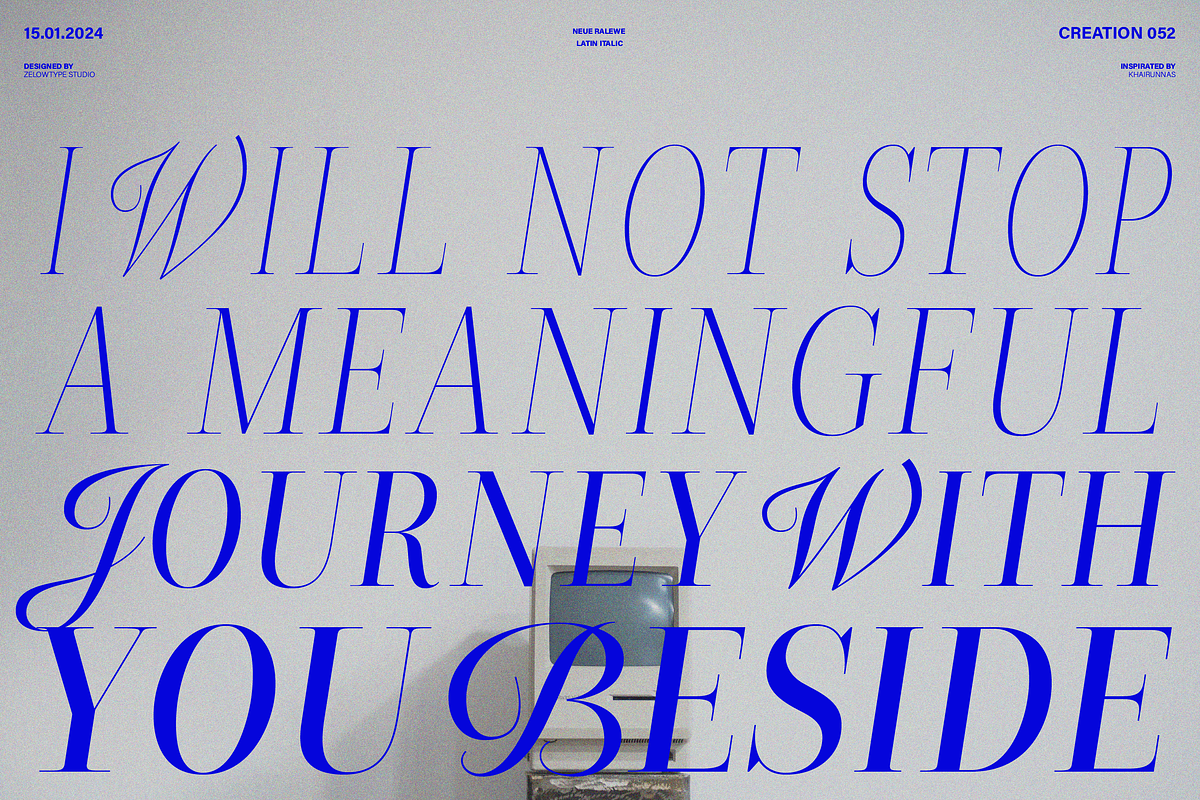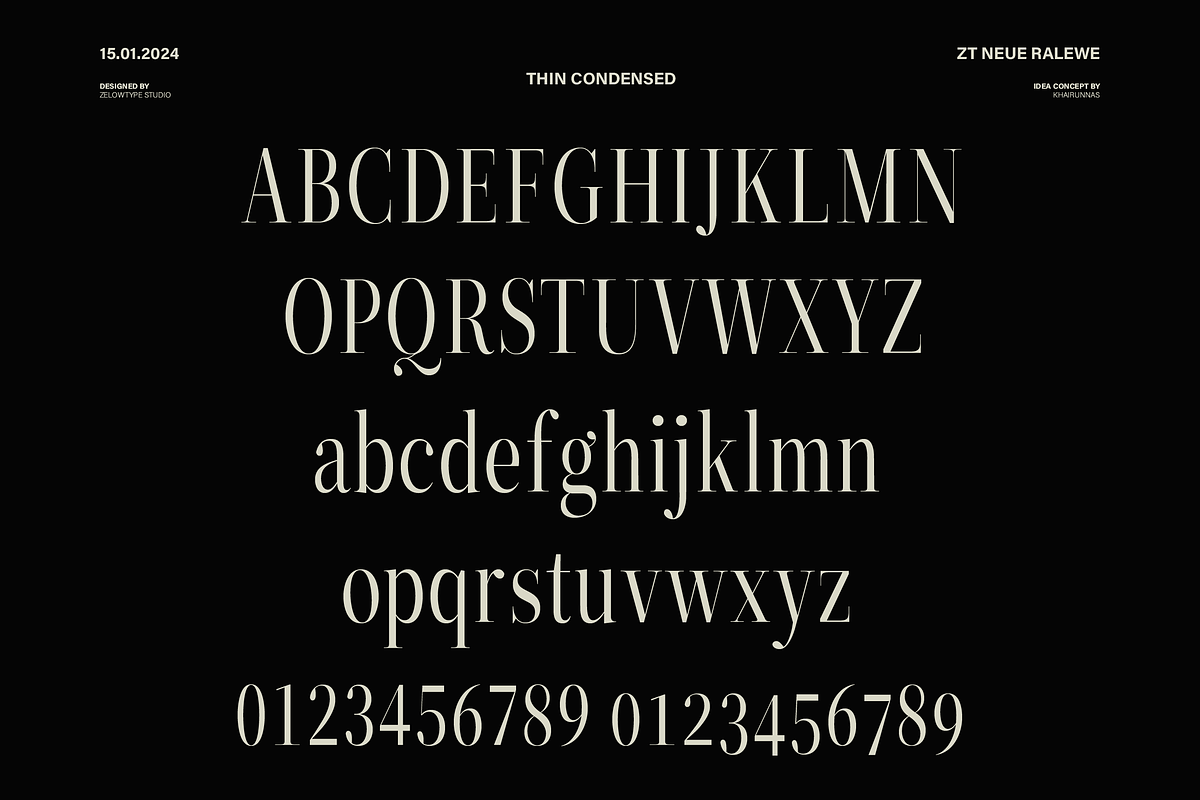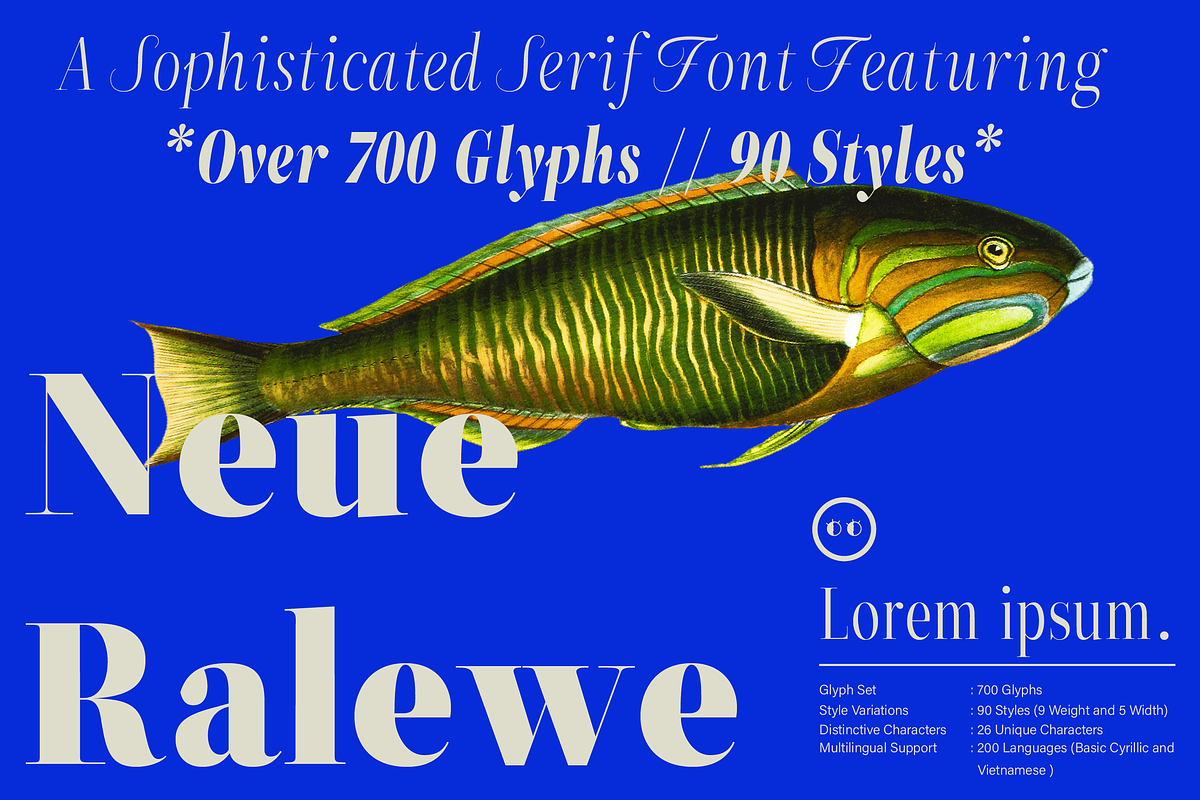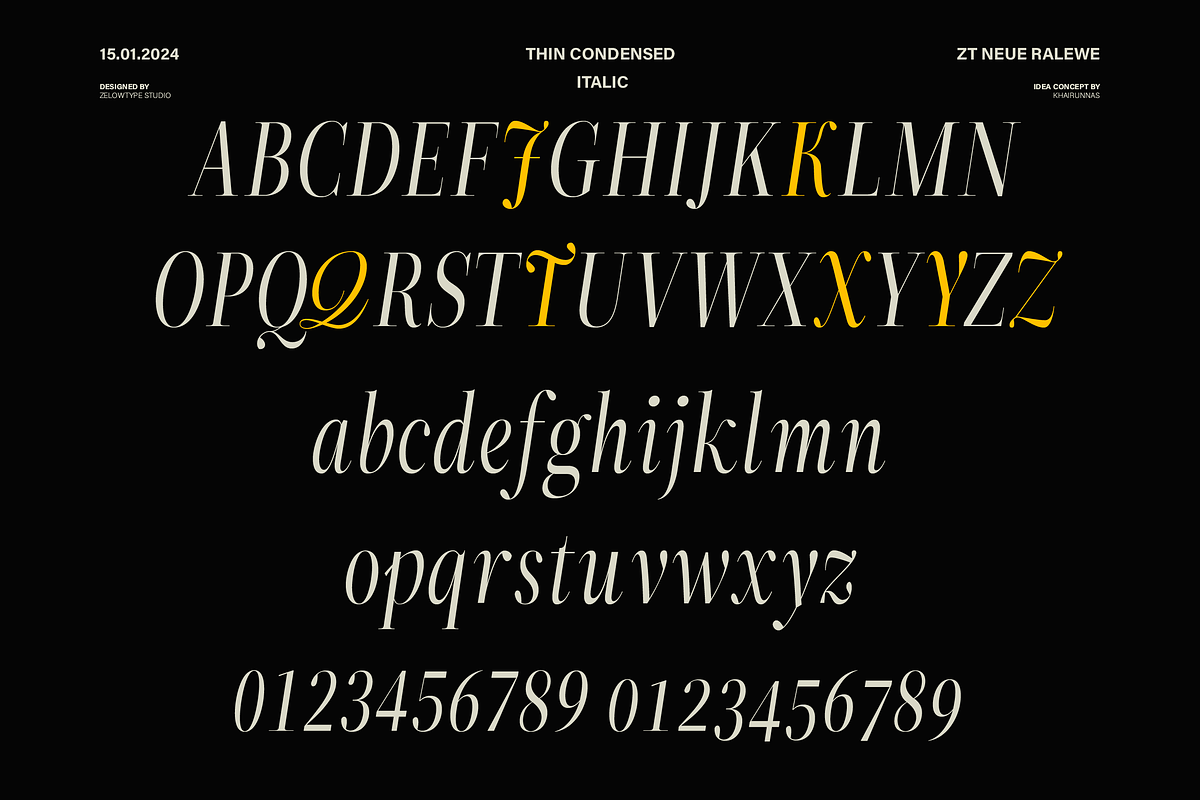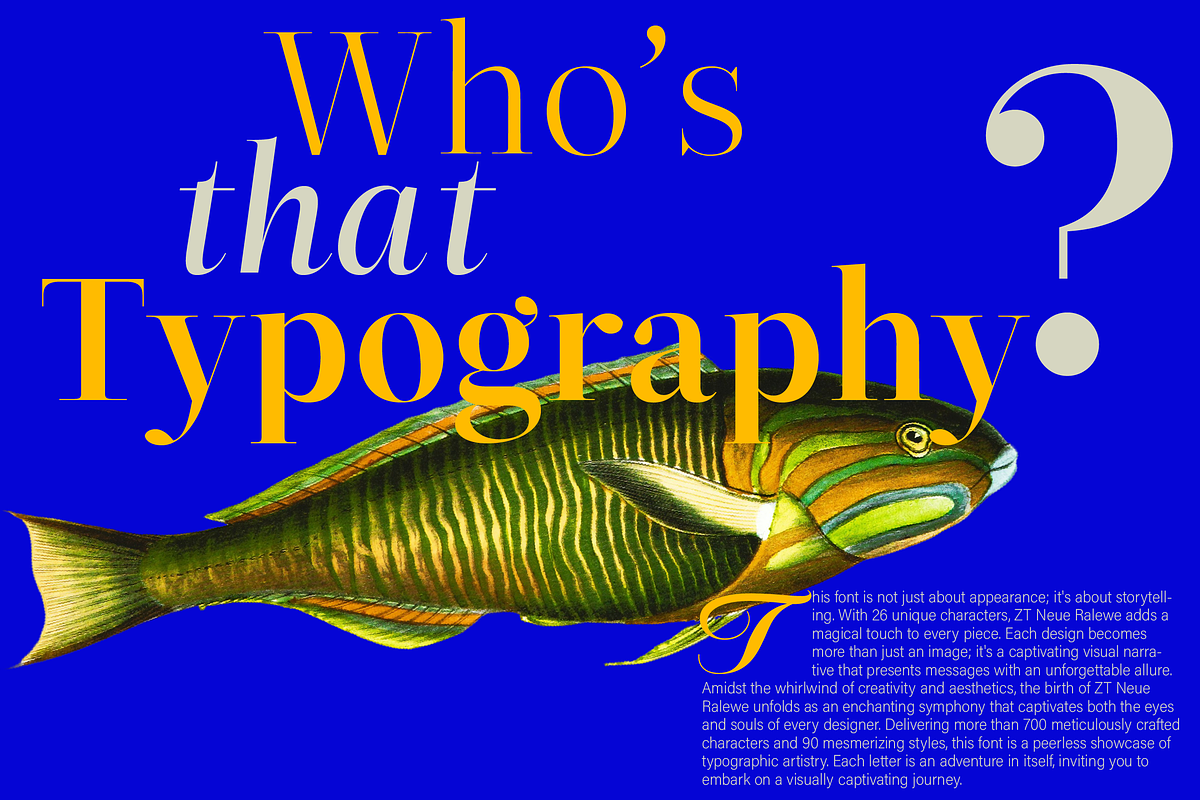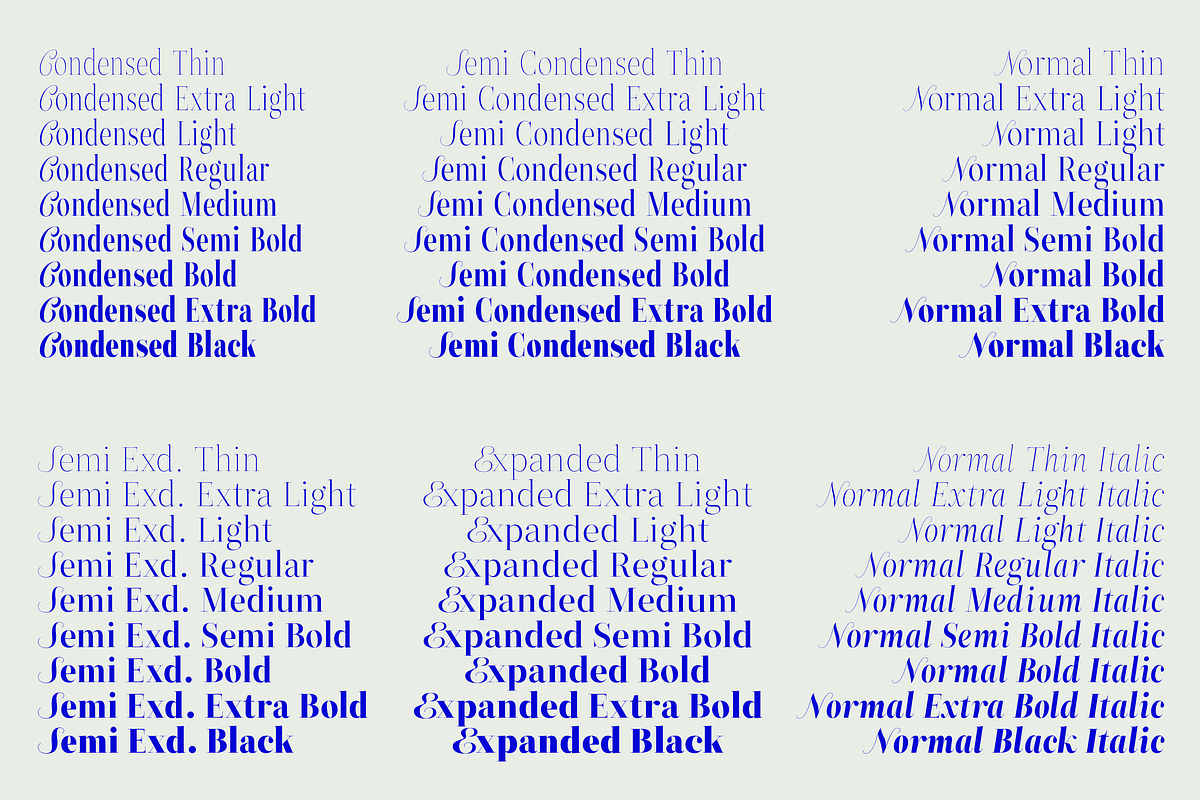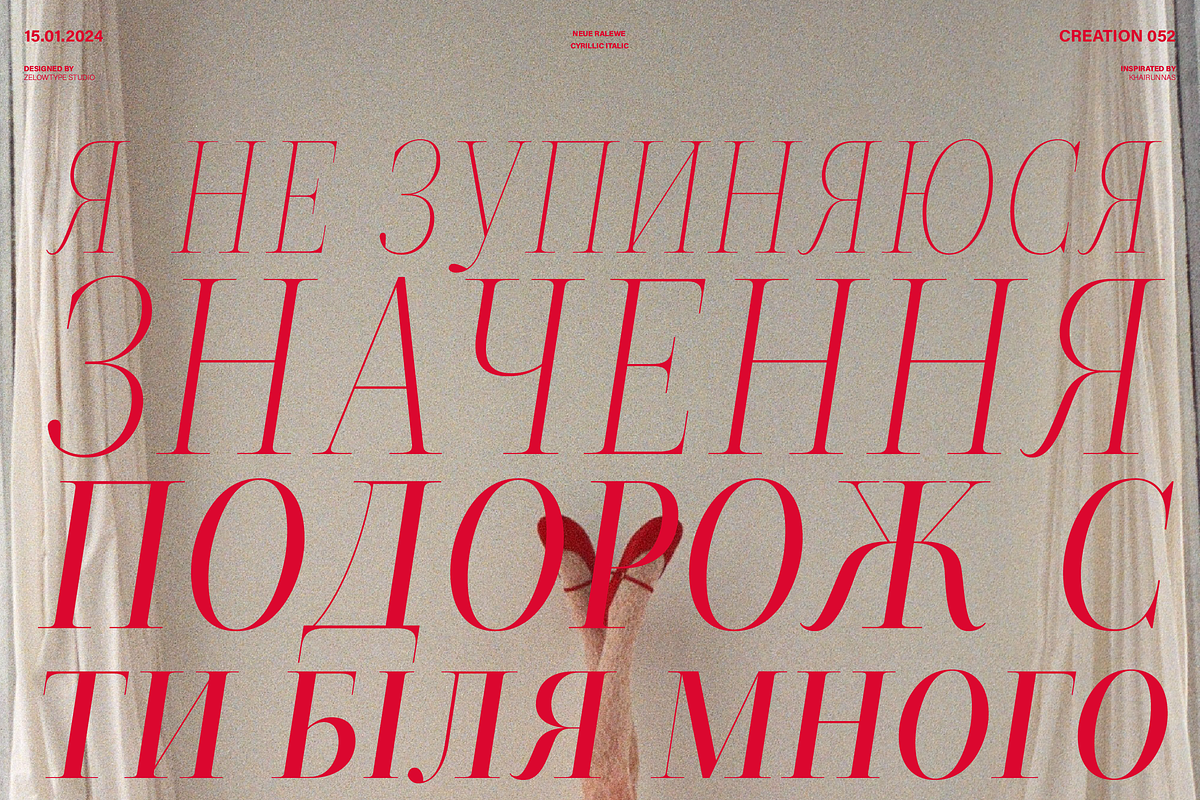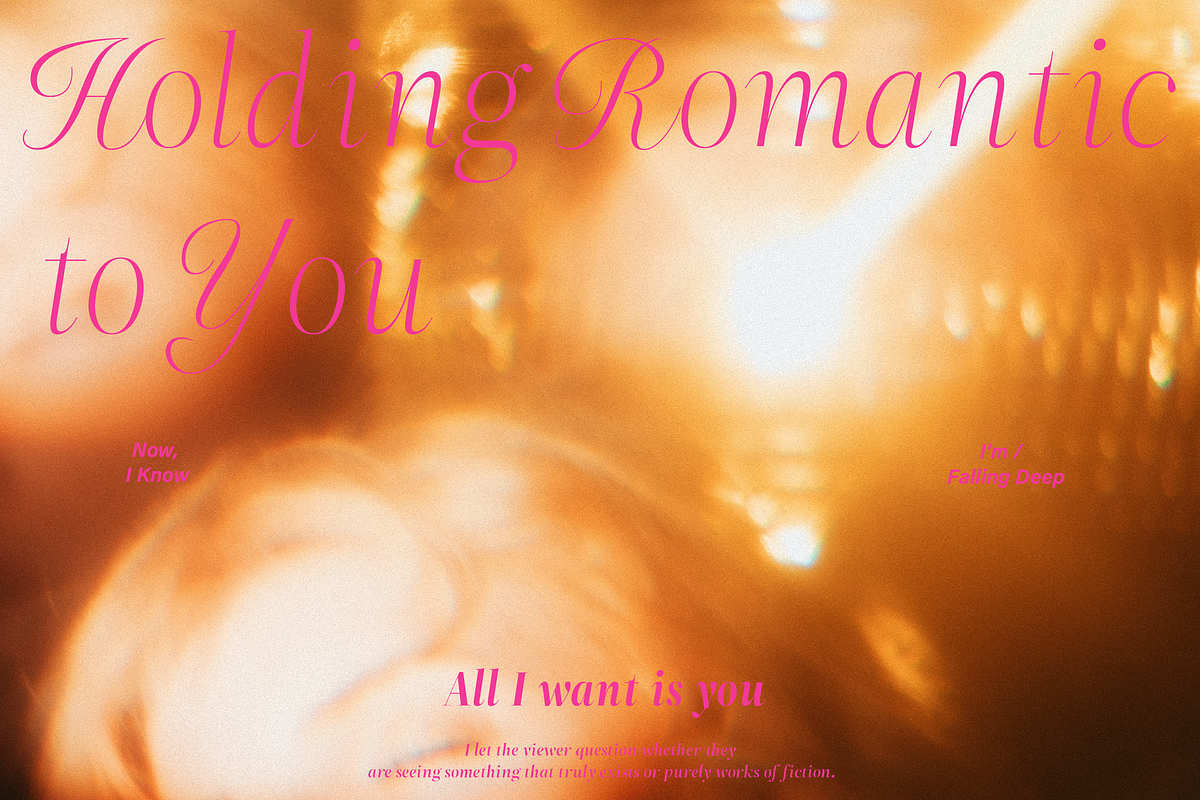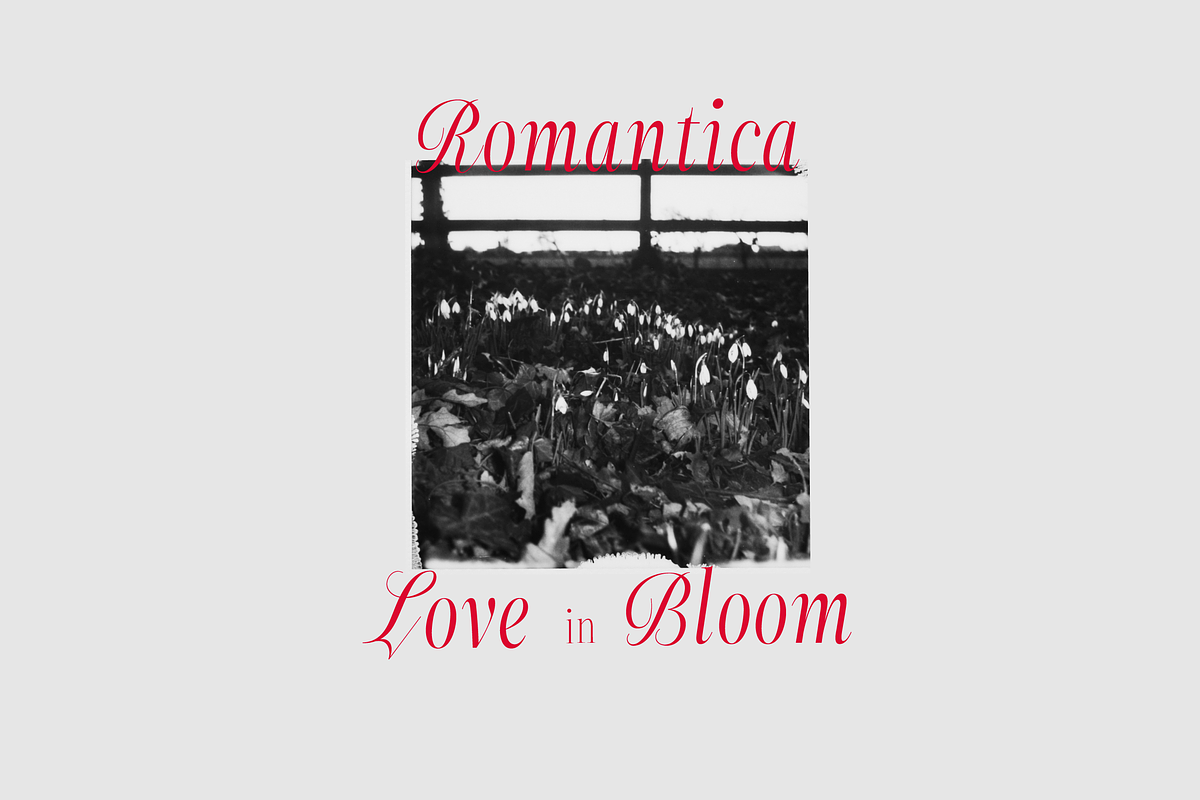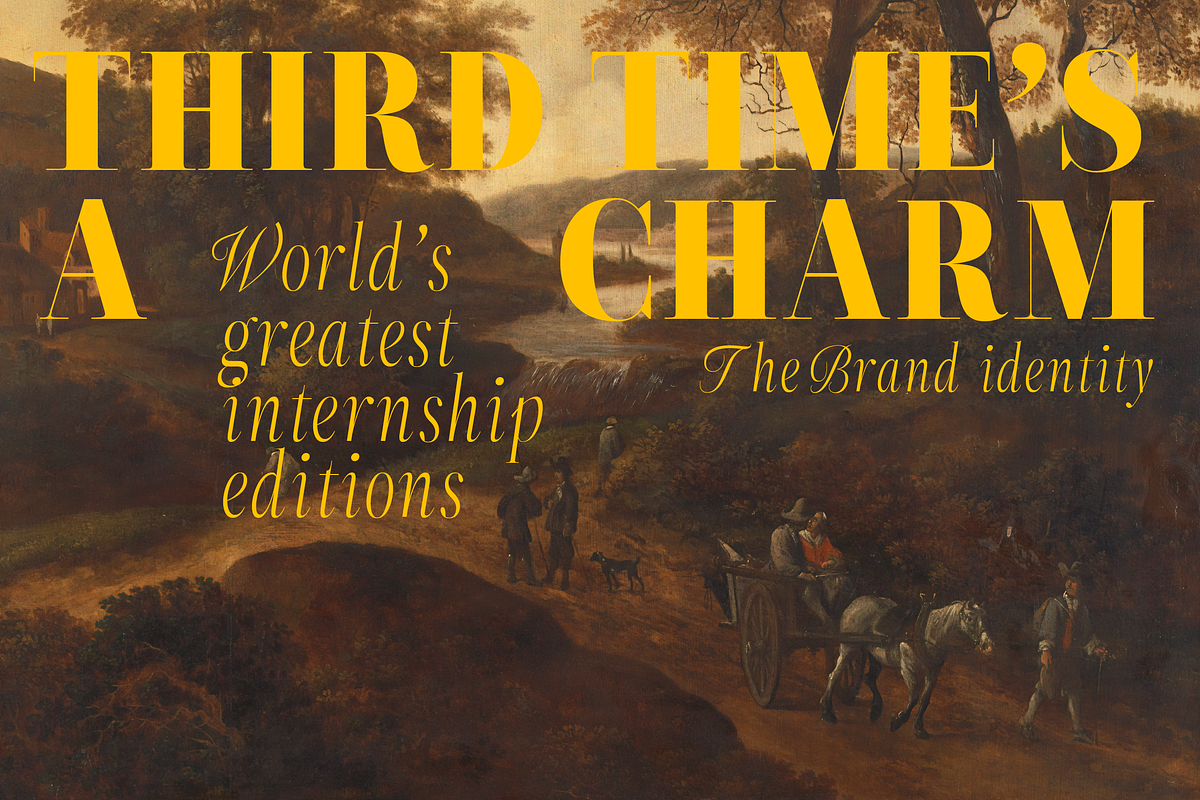
ZT Neue Ralewe Luxury Serif 90 Font
Step into the realm of design opulence with ZT Neue Ralewe – a serif font that doesn't just grace your creations; it transforms them into masterpieces. This font is more than a collection of characters; it's an embodiment of:
90 Styles: From the delicate dance of Thin to the commanding presence of Black.
26 Unique Characters, each whispering tales of individuality.
700+ Glyphs, a kaleidoscope of expressive possibilities.
Condensed to Expanded Variations, offering a canvas for dynamic design poetry.
Timeless Elegance that transcends trends, crafting a legacy of sophistication.
Global Language Support, a harmonious embrace, inclusive of Basic Cyrillic.
Versatility for both Headlines and Body Text, where every word becomes a stanza.
Deliberately spaced for a choreography of sophistication, ZT Neue Ralewe is where style and readability engage in a dance of visual poetry. Craft compelling headlines that sing with allure or refine body text with the grace of a well-composed verse.